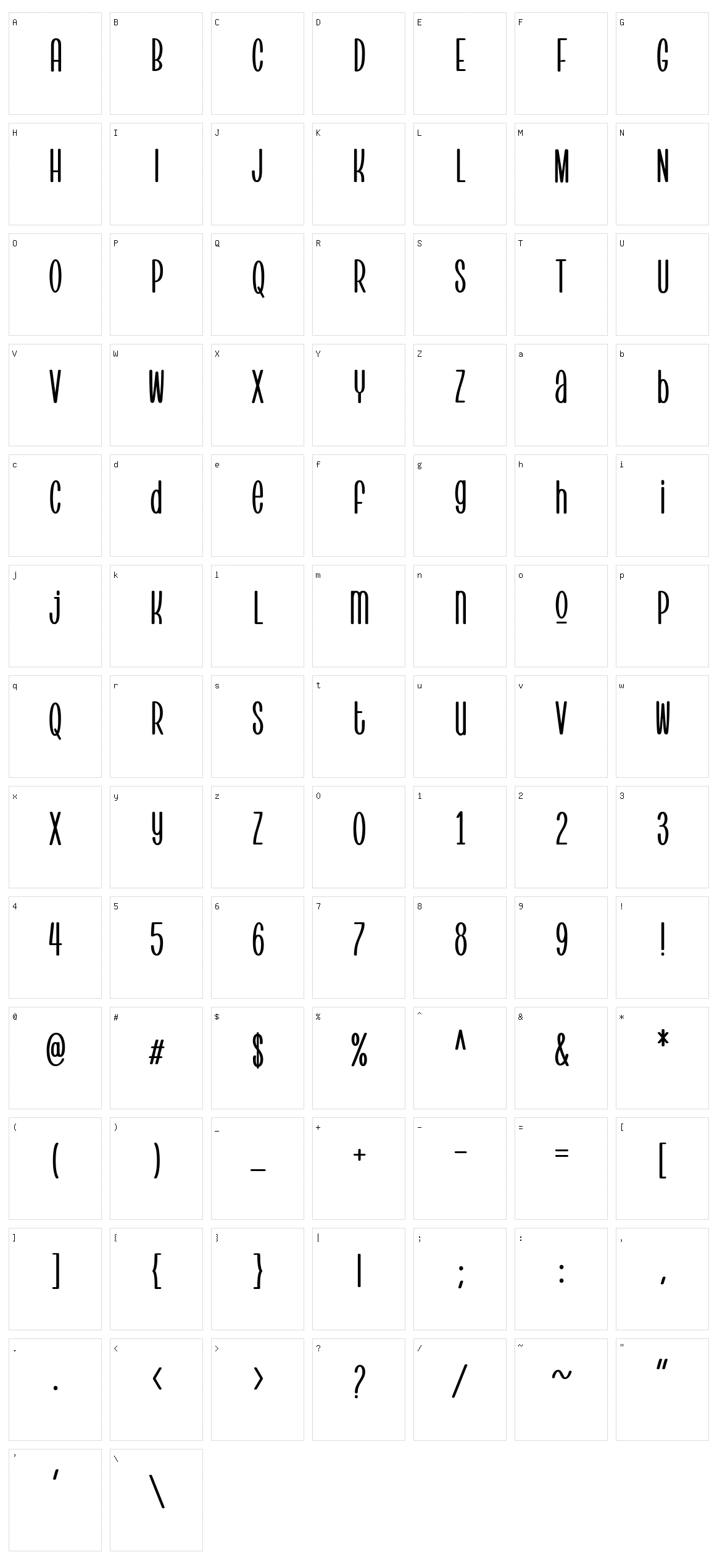
Pantura is a simple yet playful handmade font. Based on casual handwriting, it makes your typographic design very personal. Several ligatures are added to make your design unique and attractive.
Pantura font is suitable for poster, invitation, label, logotype, packaging and more. Available in two styles, regular and bold. Also supports multi-language and PUA encoded.